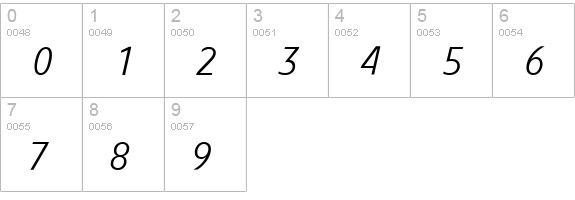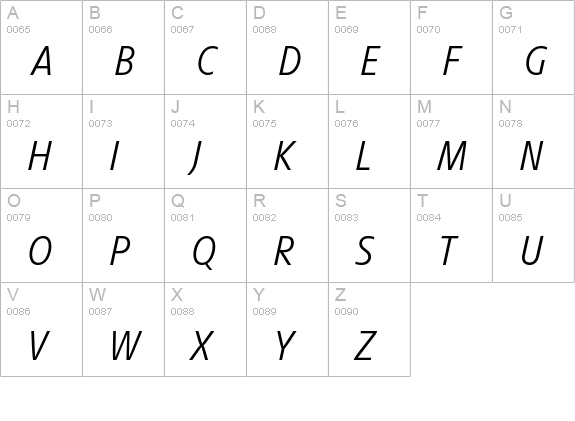
Evo kursiv mager Font Details
Evo kursiv mager font is a sleek and modern typeface that exudes elegance and sophistication. Its unique italicized style adds a touch of flair to any design project, making it perfect for a variety of applications. Whether you're creating a logo, branding materials, or editorial content, Evo kursiv mager font will elevate your work to the next level. The best part? This stunning font is available for free download at FontsMarket.com. With just a few clicks, you can add Evo kursiv mager font to your font library and start using it in your projects right away. Don't miss out on this opportunity to enhance your designs with this versatile and eye-catching font. Download Evo kursiv mager font today and take your creativity to new heights!